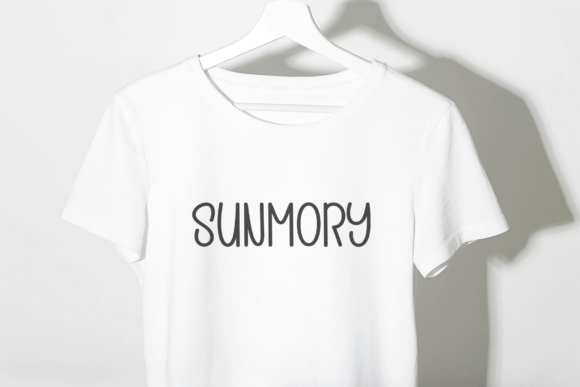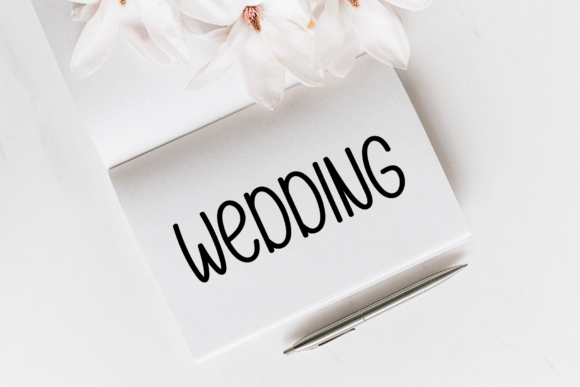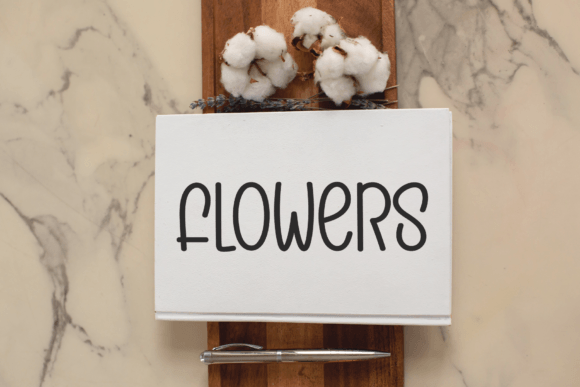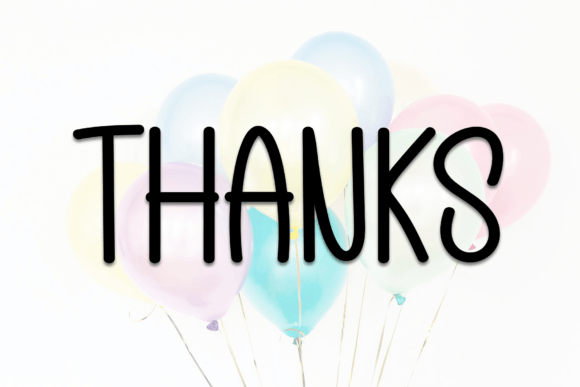
Unleash the Fun: Introducing Birthday Party Font
Have you ever sat down with a blank sheet of paper, a marker in hand, and let your creativity run wild? For designers, those carefree moments are the foundation of great design. The lines, the curves, the imperfections – it’s all part of what makes a design truly unique. And that’s exactly what the Birthday Party Font is all about.
This beautiful handwritten font has a relaxed and sporty feel that’s perfect for branding, logos, wedding supplies, and anything else that needs a touch of elegance and sophistication. Whether you’re working on a marketing campaign or a wedding invitation, the Birthday Party Font is the perfect tool to add a personal touch to your designs.
- Unique Characteristics: Hand-drawn illustrations and playful letterforms create a whimsical atmosphere perfect for children’s birthday celebrations.
- Kerning and Ligatures: Includes expertly crafted kerning and ligatures for precise typographic control and a polished appearance.
Birthday Party Font Review
Overall, I think the Birthday Party Font is a fun, playful choice for its intended use – specifically birthday invitations, decorations, or party-themed materials. ✨ The rounded shapes and bubbly feel evoke a sense of excitement and celebration.
- The font’s unique personality shines through in its creative, hand-drawn aesthetic.
- The bold and vibrant colors available make it easy to match the font with any party theme.
- The font is suitable for a wide range of applications, from digital graphics to print materials.
However, I do have a few concerns: ⚠️ The font may be too loud or overwhelming for certain applications, particularly if used in large quantities or without sufficient contrast.
- The font’s design may not be suitable for formal or professional materials, as it can come across as childish or immature.
- The font’s irregular shapes can make it difficult to read at smaller font sizes or in situations where clarity is crucial.
Overall, I think the Birthday Party Font is a great choice for the right project, but it’s essential to consider the context and potential limitations before using it.
Here are a few tips to get the most out of the Birthday Party Font:
- Use it in conjunction with bright and bold colors to create a festive atmosphere.
- Use it in creative ways, such as in banners or headings, to draw attention.
The Birthday Party Font is commonly used for:
- Creating birthday invitations and party decorations.
- Designing party banners and signs.
- Adding a festive
Alternatives to Birthday Party Font
Birthday Party Font is a playful and whimsical font, but it may not be suitable for all design projects. Here are some alternatives that designers can consider:
Great Vibes is a modern and elegant script font that is perfect for adding a touch of sophistication to designs. It has a relaxed and casual feel, making it ideal for use in wedding invitations, event announcements, and social media graphics. Great Vibes is a more refined and polished alternative to Birthday Party Font, with a wider range of styles and weights available.
Cursive Script
Cursive Script is a classic and elegant font that is perfect for formal and professional designs. It has a smooth and flowing feel, making it ideal for use in business cards, letterheads, and certificates. Cursive Script is a more formal and structured alternative to Birthday Party Font, with a more traditional and timeless look.